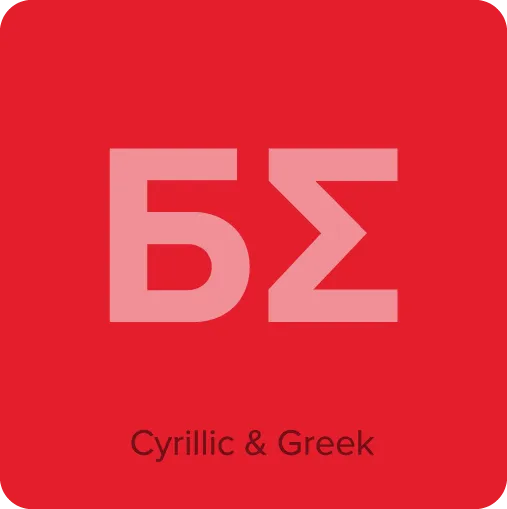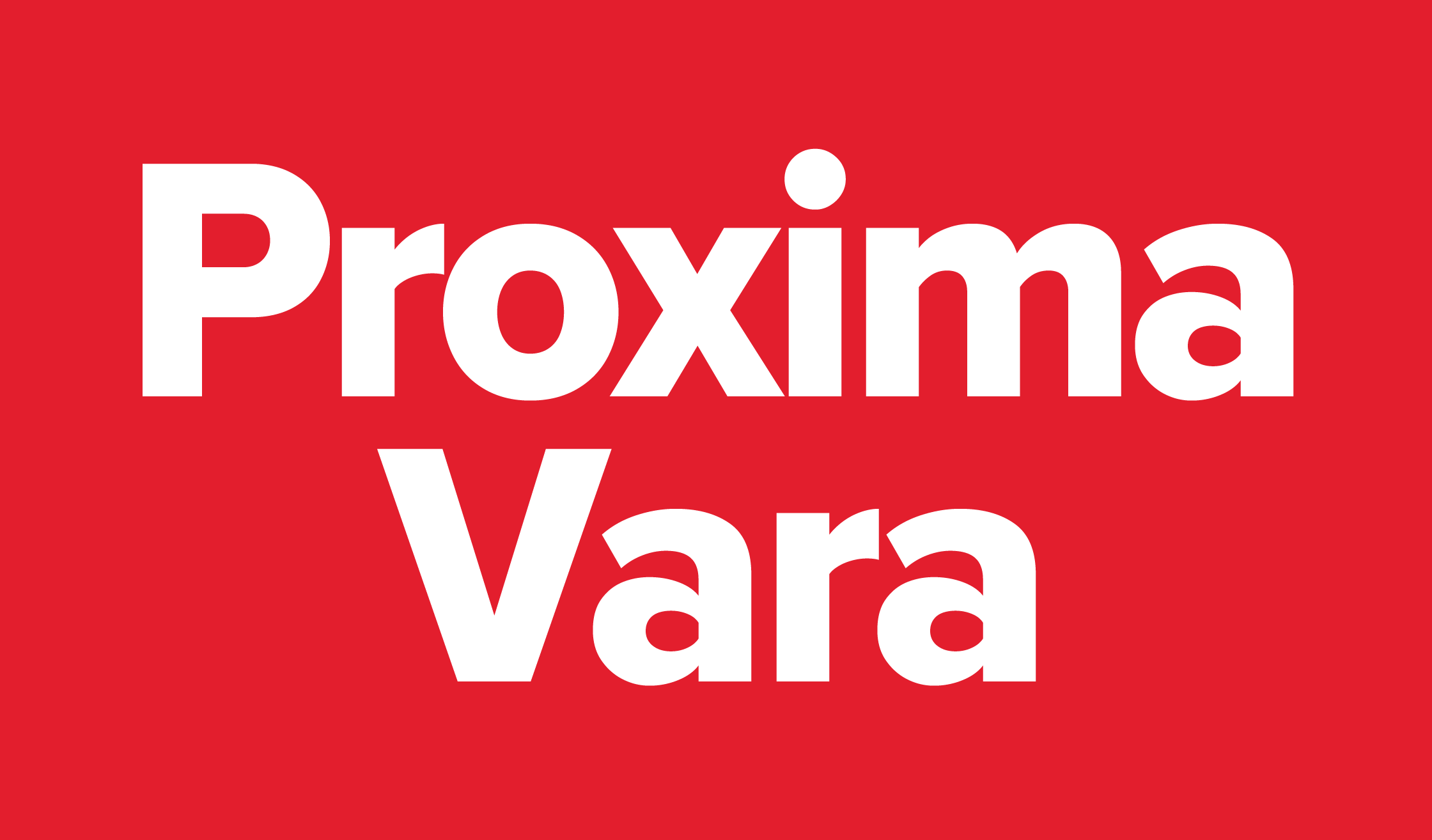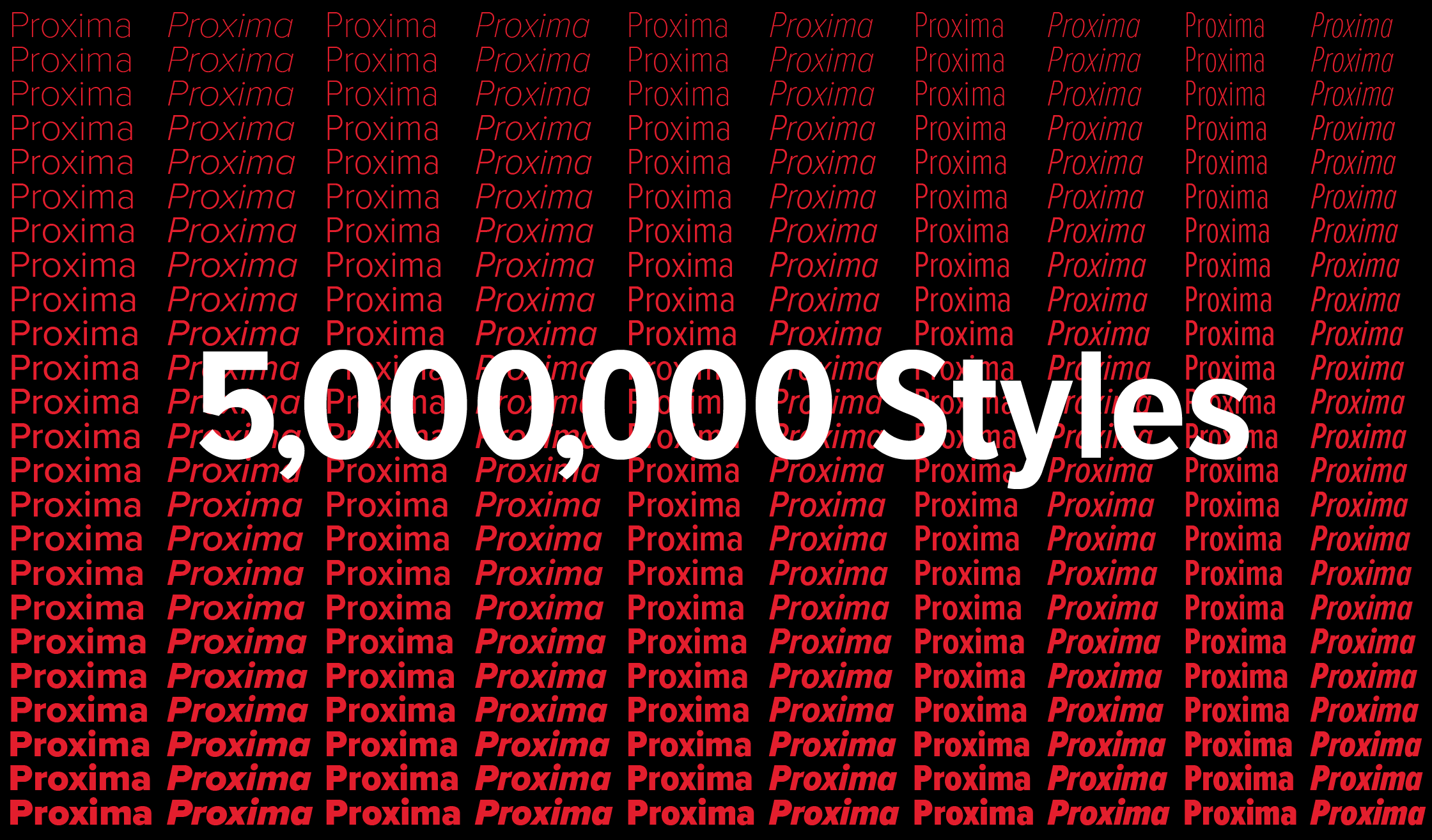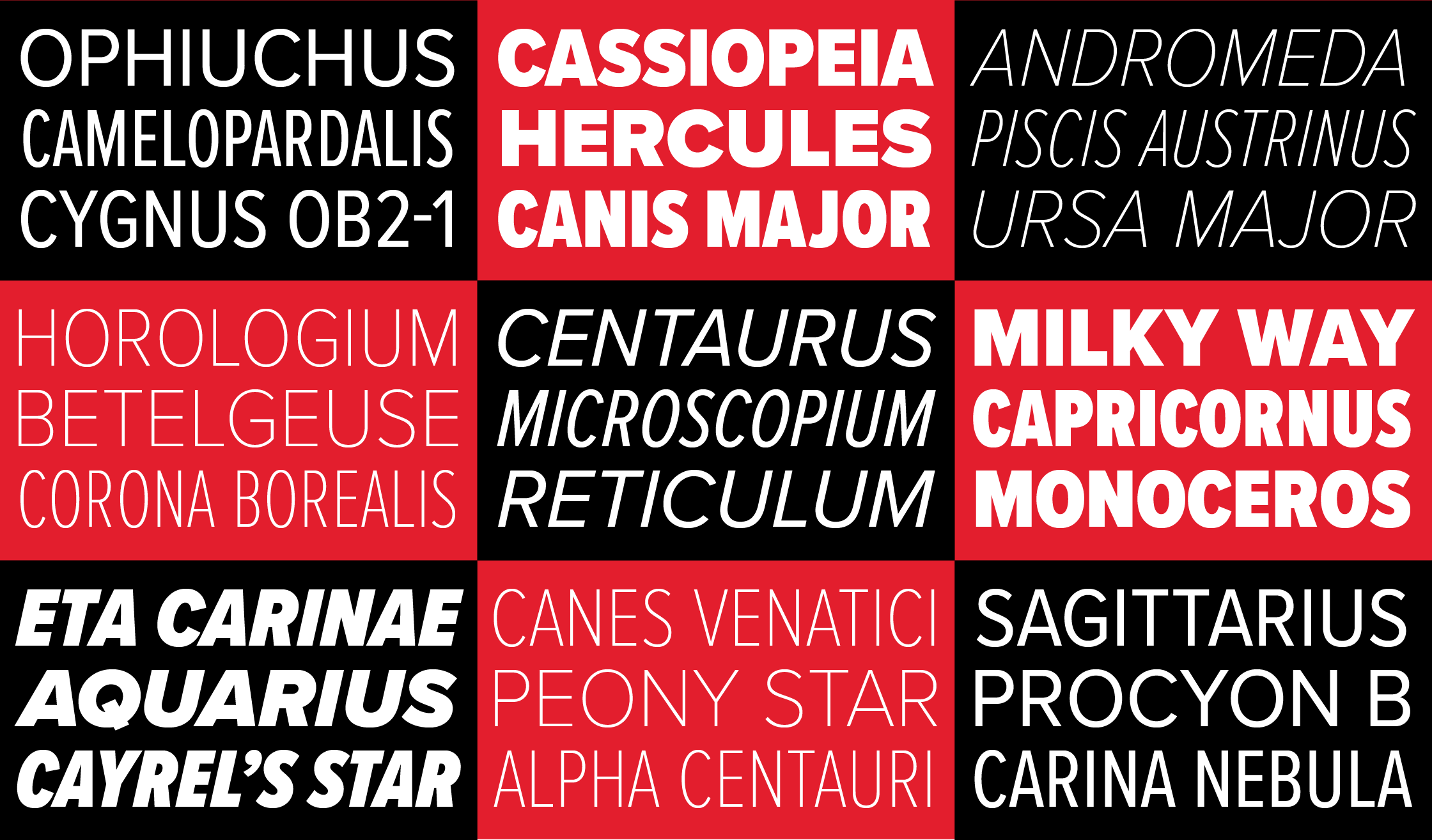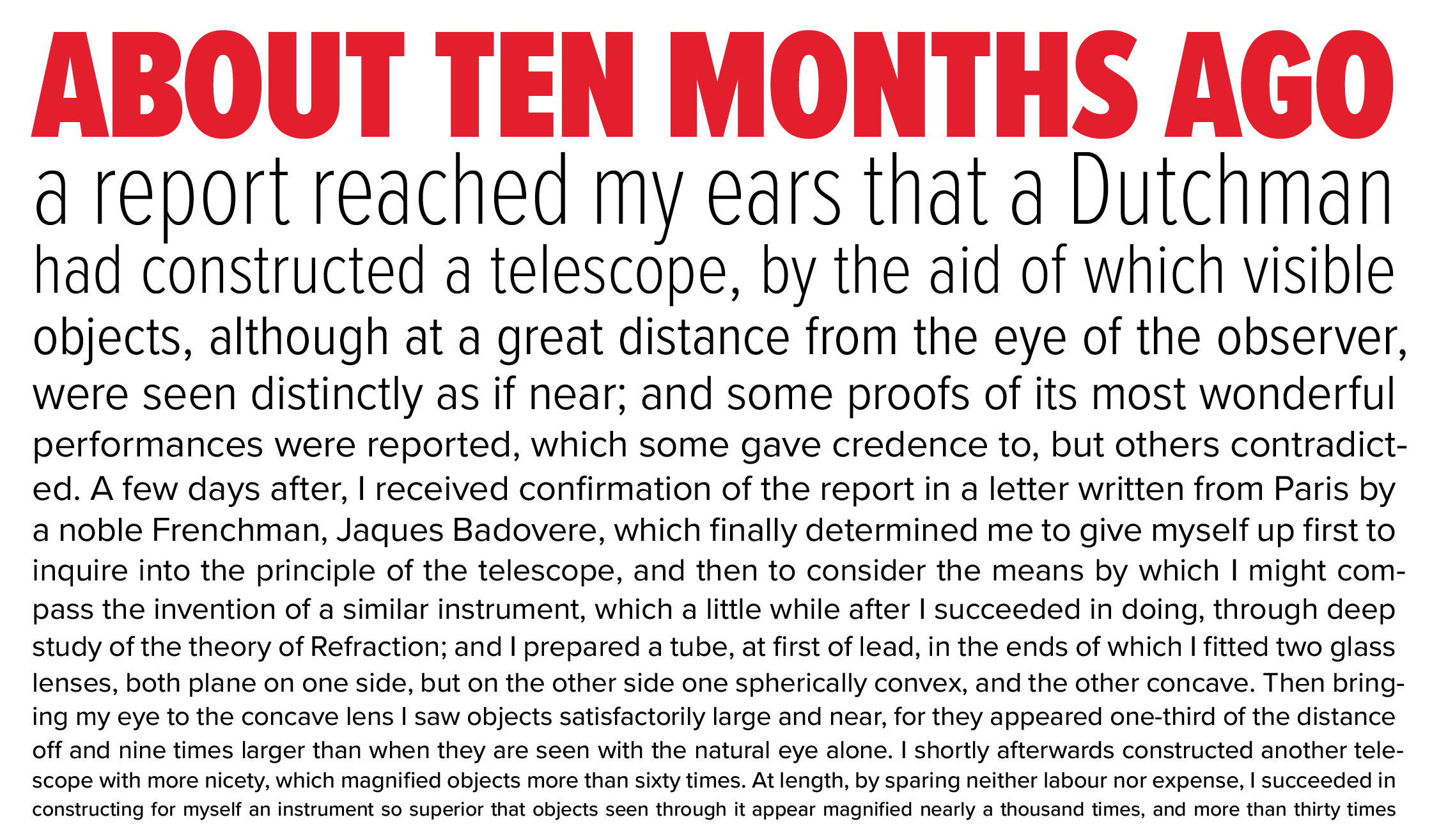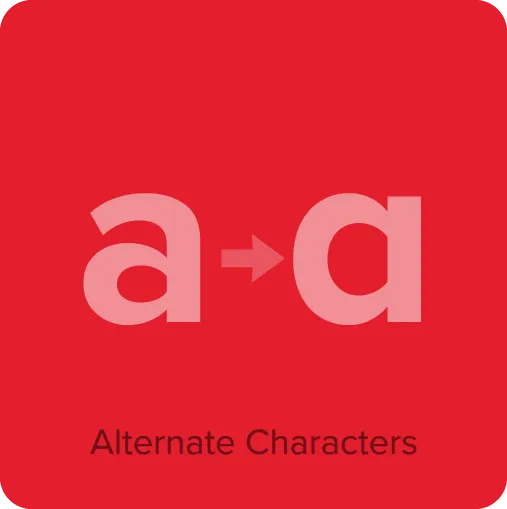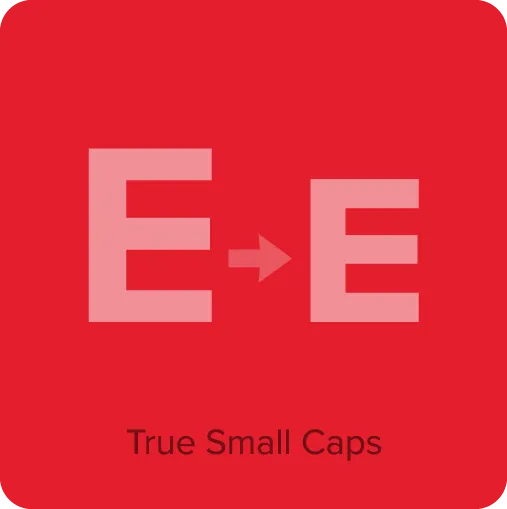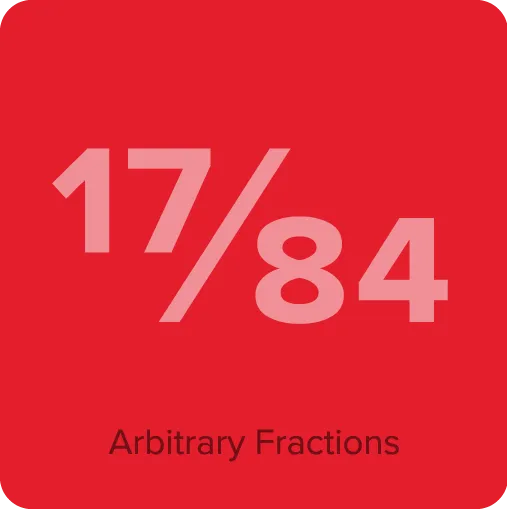
Proxima Vara (2021) is a variable version of my popular Proxima Nova type family. In a single font file, it contains all the weights and styles of Proxima Nova — plus any style between them along any of three dimensions (weight, width, and slant) without the distortion that comes with artificial manipulation such as squeezing, stretching, or slanting. If you want something that’s a little bolder than Regular, and little bit more condensed, you can get it. Proxima Vara contains all of the characters and features in Proxima Nova such as alternate characters, true small caps, old style figures, arbitrary fractions, and support for most Latin-based languages, Greek, and Cyrillic. Variable fonts work in most modern web browsers, which is great because it allows you to use many more styles of Proxima Vara on a web page than you can with Proxima Nova. This is because the complete family is contained in a single font file, and loads as quickly as about four styles of Proxima Nova. And, of course, you can use subsetting for even faster page loads. For print applications, Proxima Vara gives you unlimited flexibility to tune weight, width, and slant to fit your exact needs.
A wisecracking jackalope on a freight vexed by Moz’s bequest.
- An entire type family contained in a single font file.
- 9 built-in weights: Thin, Extralight, Light, Regular, Medium, Semibold, Bold, Extrabold, and Black as well as any arbitrary weight between Thin and Black.
- 3 built-in widths: Normal, Condensed, and Extra Condensed as well as any arbitrary width between normal and Extra Condensed.
- Matching italics for all weights and widths as well as any arbitrary slant angle between roman and italic.
- Arbitrary slants between Normal and Italic.
- Matching small caps for all styles.*
- Lining and old style figures (proportional and tabular).*
- Full “f” ligature set (ff, fi, fl, ffi, ffl, etc.).*
- Alternate characters (a, l, y, G).*
- Automatic arbitrary fractions.*
- Automatic ordinals.*
- Dingbats (16).
- Extended language support for most Latin-based Western and Central European languages and Vietnamese, as well as Greek and Cyrillic.
- Extended currency support.